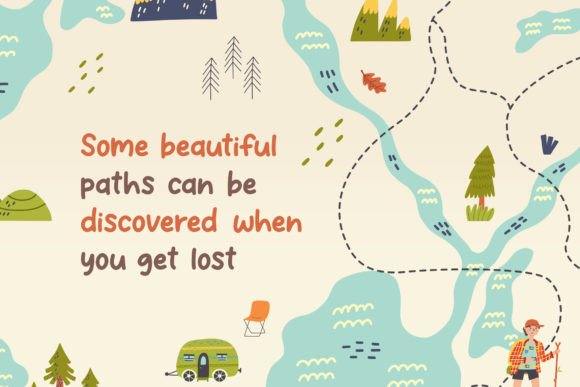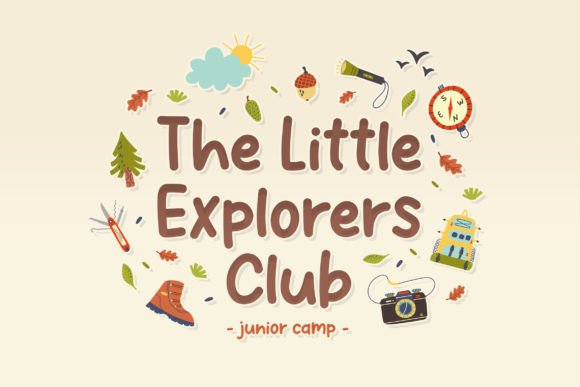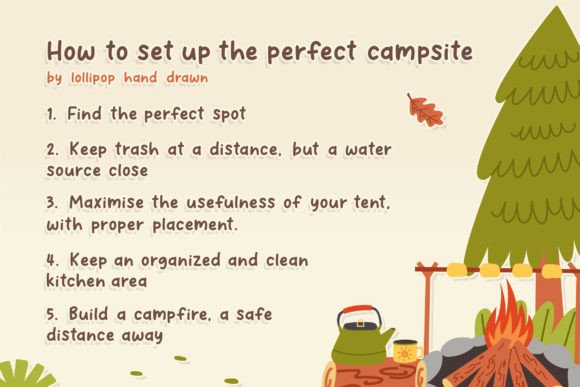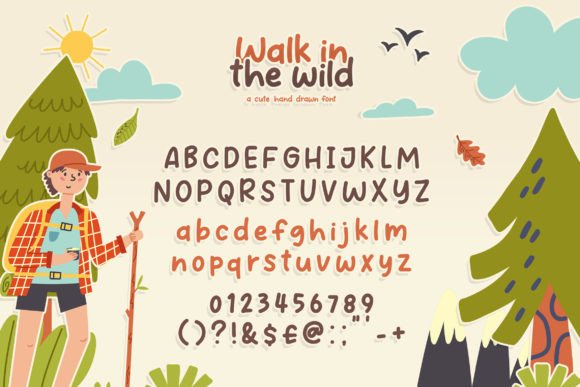
Walk in the Wild Font
About Walk in the Wild Font
Walk in the Wild is a fun and friendly handwritten font that brings a lighthearted touch to any design. Its quirky and playful character makes it perfect for a wide range of projects, from personal crafts to professional branding. Whether you are designing greeting cards, children’s books, social media posts, or creative logos, Walk in the Wild will help your message feel warm and approachable.
A Touch of Whimsy in Every Letter
Every letter in Walk in the Wild is crafted with care to deliver a lively and engaging appearance. The slight irregularities in each character give it a true handwritten feel that stands out. This makes it ideal for projects that call for a personal, authentic look.
The quirky style is full of personality. It feels as though each letter was drawn with joy and intention, making your designs feel unique and memorable.
Versatile for All Kinds of Projects
Walk in the Wild is designed to be as versatile as it is charming. You can use it for:
• Invitations: Make wedding, baby shower, or party invites feel extra special.
• Social Media Graphics: Add a fun touch to Instagram posts and stories.
• Merchandise: Print on t-shirts, mugs, or tote bags.
• Quotes and Posters: Create inspiring wall art or educational prints.
• Logos and Branding: Perfect for brands that want a friendly, approachable image.
Whatever you create, this font will bring warmth and character.
Why You’ll Love Walk in the Wild
• Playful and Friendly: Adds a welcoming feel to every design.
• Handwritten Style: Brings authenticity and charm.
• Wide Range of Uses: Suitable for everything from kids’ projects to creative branding.
• Professional Quality: Clean lines and consistent strokes ensure it looks great in print and digital.
Tips for Getting the Best Results
1. Use Bright Colors: Pair the font with vibrant palettes to highlight its playful nature.
2. Mix with Simple Fonts: Combine with clean sans-serifs for balance and readability.
3. Try Large Headlines: Show off the unique letter shapes at bigger sizes.
4. Add Illustrations: Enhance your design with cute icons or doodles.
Bring Your Ideas to Life
Walk in the Wild is more than just a font—it’s a way to add personality and joy to your work. From heartfelt messages to professional branding, it ensures your designs feel genuine and full of life.